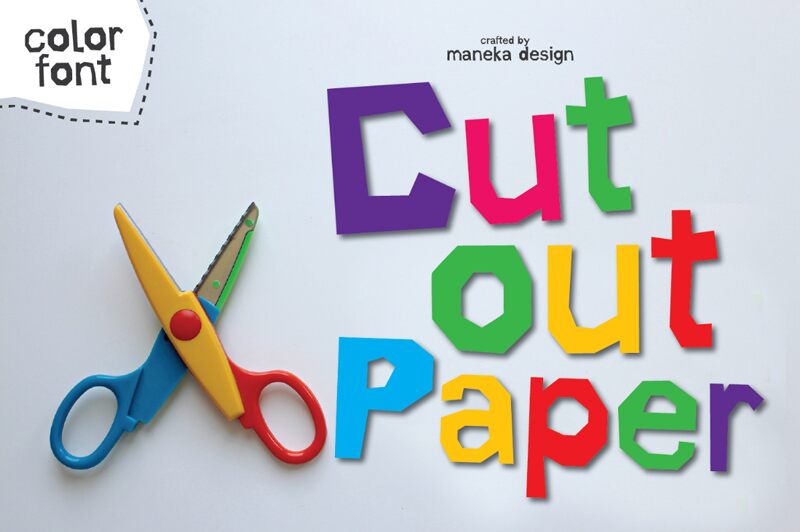
The perfect font for your next project is here - Cutout Paper, designed by Dina Chandra. This display font has a unique comic style and offers a bold, wide character set with a paper cutout look. Cutout Paper is the ideal choice for posters, flyers, comics or any project that requires an eye-catching design. Unleash your creativity and let this striking font do the talking!
Cutout Paper
Dina Chandra